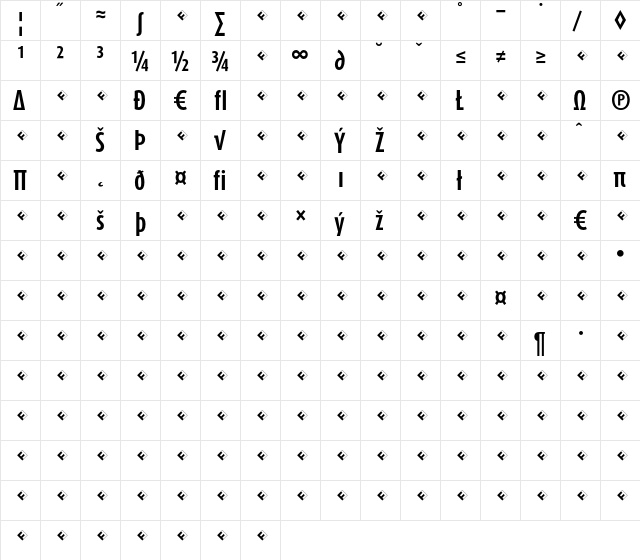
DaxCompact-BoldExpert Regular Font Preview
DaxCompact-BoldExpert Regular
DaxCompact-BoldExpert Regular Font Details
Design Context for DaxCompact-BoldExpert Typeface
DaxCompact-BoldExpert is a composed and adaptable typeface that performs quietly and consistently across a wide range of design contexts. Its bold stroke weight gives it real presence on the page. The condensed width makes it efficient for tight spaces without sacrificing legibility.